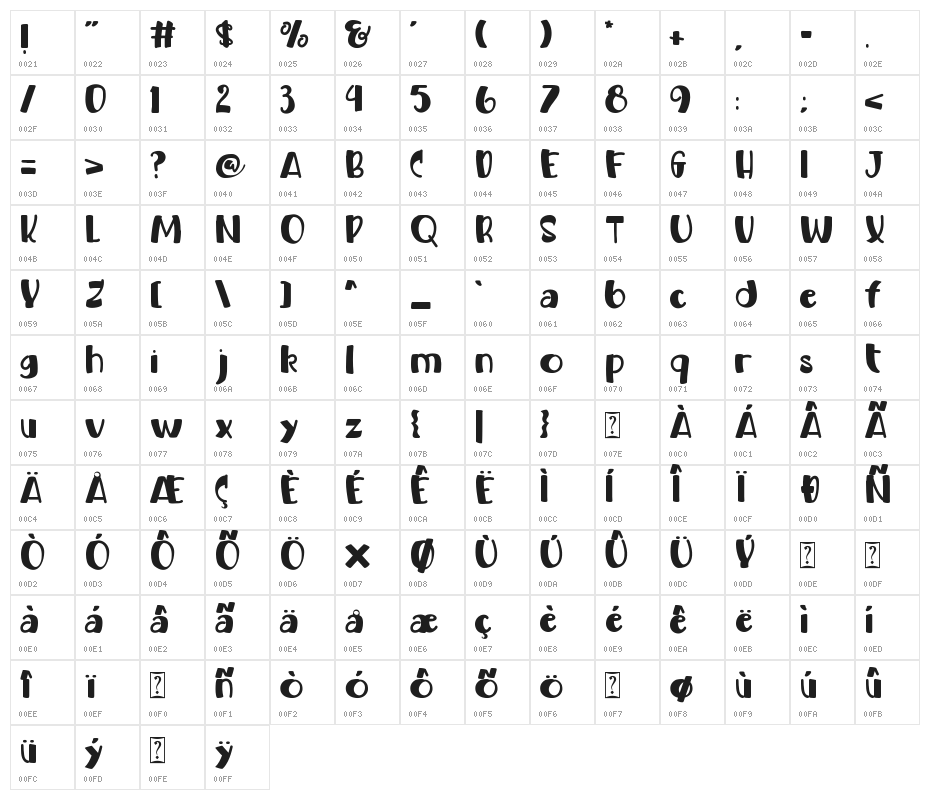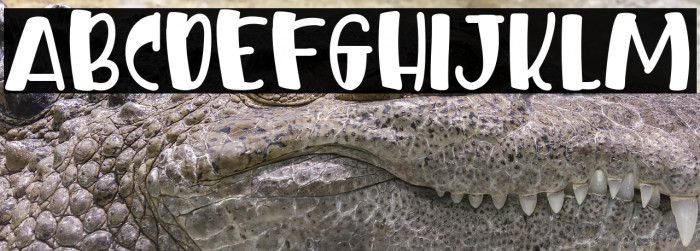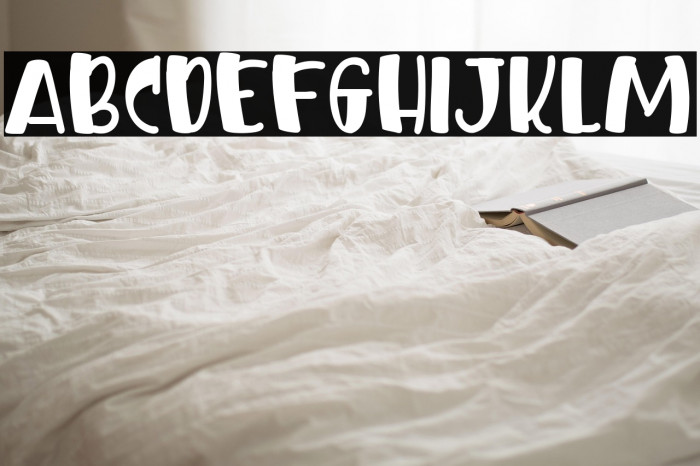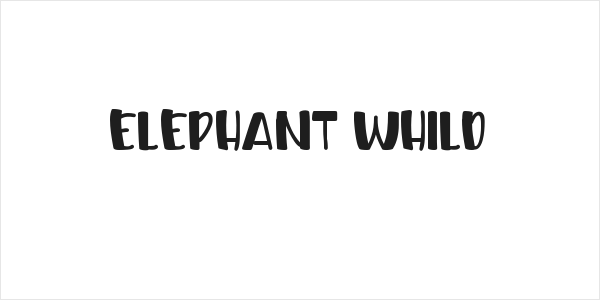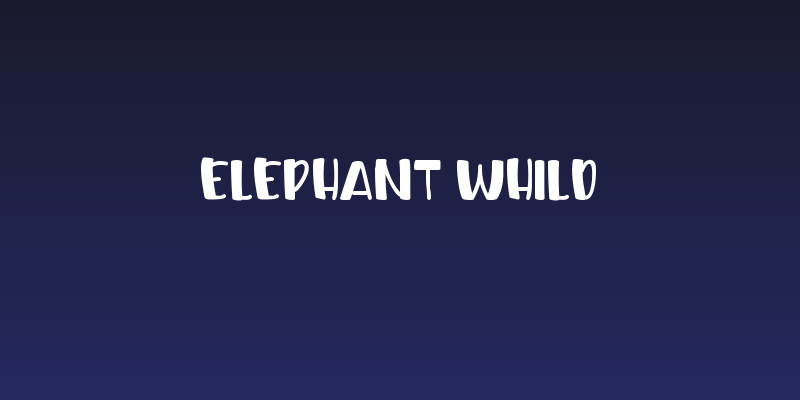
ELEPHANT WHILD Font
ELEPHANT WHILD Description
This font features a bold and playful style with a hand-drawn appearance. The uppercase and lowercase letters are characterized by their thick, rounded strokes and slightly irregular shapes, giving them a whimsical and lively feel. The numbers and special characters maintain this playful aesthetic, ensuring consistency across all glyphs. The font's unique style makes it stand out, with a strong presence that captures attention. Its boldness is complemented by a slight variation in stroke width, adding a touch of dynamism to the overall design. The font's informal and friendly look makes it suitable for creative and fun projects.
Overall StylePlayful, Whimsical, Hand-drawn
Proposed ProjectsIdeal for children's books, playful branding, party invitations, and creative posters.